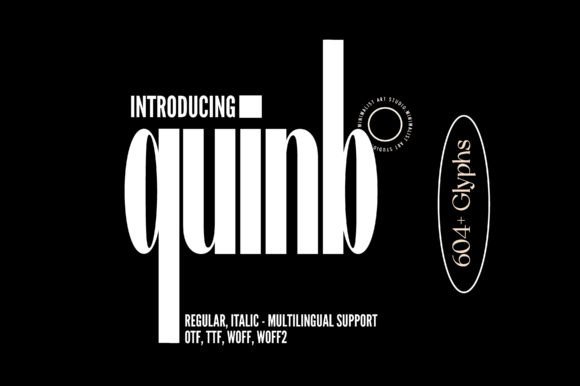
Introducing Quinb Font, an exquisite, condensed sans serif font poised to redefine your design endeavors. Its minimalist undertones, elongated structure, and clean lines bestow a sense of modernity and understated grace to any project it graces.
With Quinb Font, experience the synergy of sophistication and playfulness. its slender serifs and precise angles exude a sense of refinement, while its slightly condensed structure adds a touch of visual intrigue. This harmonious balance of elements transforms your designs into captivating expressions of art.
Step into a world of versatility with Quinb Font. Whether you're crafting wedding invitations that whisper elegance or designing sleek logos that command attention, this font seamlessly adapts to your creative vision. From branding and advertising to web design and packaging, Quinb Font effortlessly elevates the ordinary into the extraordinary.
Unleash your creativity and let Quinb Font guide you on a typographic adventure. its versatile nature empowers you to craft designs that speak volumes, leaving a lasting impression on your audience. Discover a world of endless possibilities and elevate your designs to new heights with Quinb Font.